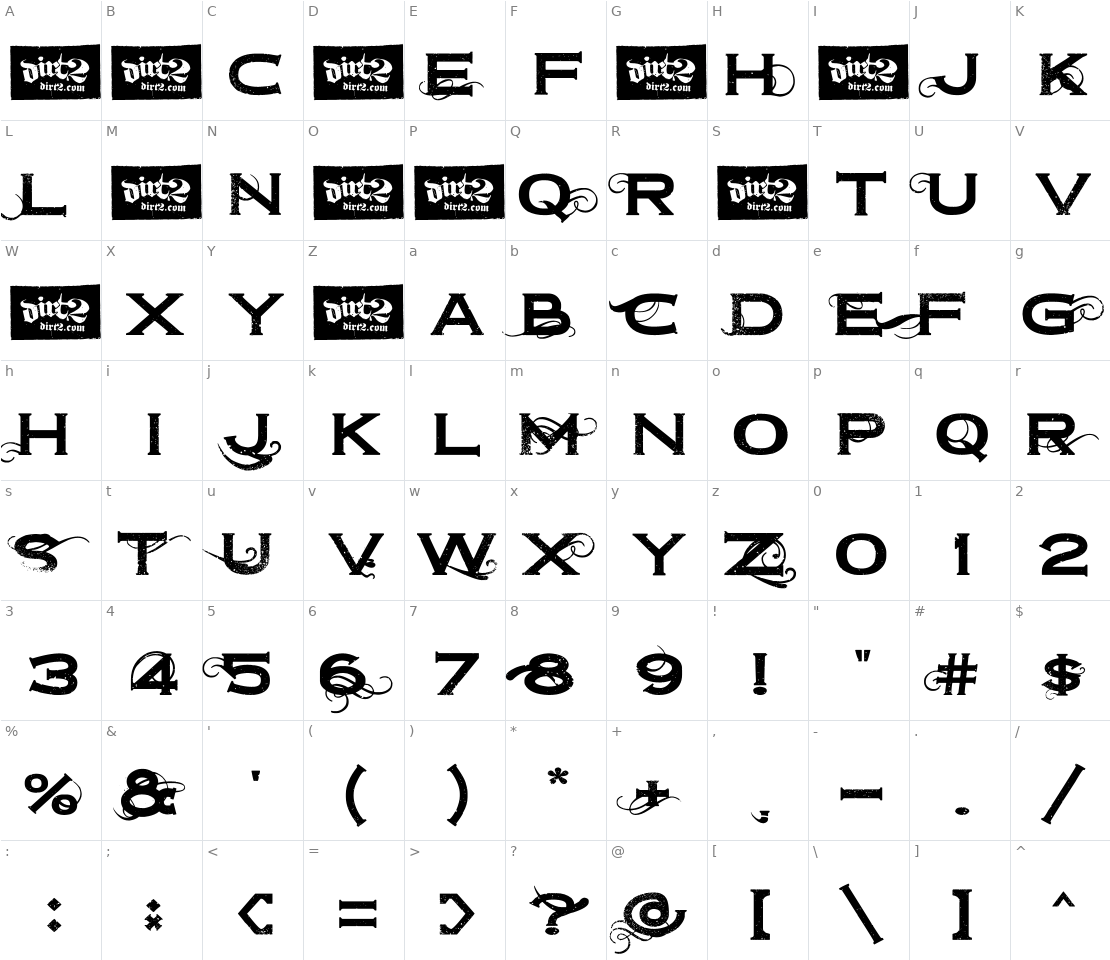
Dirt2 Copperbolt
Dirt2 Copperbolt is a heavy, uppercase display face from Dirt2.com / SickCapital with battered, grunge-worn letterforms that look like they've been stamped hard and left to corrode. The bold weight and aggressive texture give it a raw, confrontational energy that works for punk flyers, metal gig posters, and dark-themed branding. Strictly a headline face, built to look rough and hit heavy at large sizes.